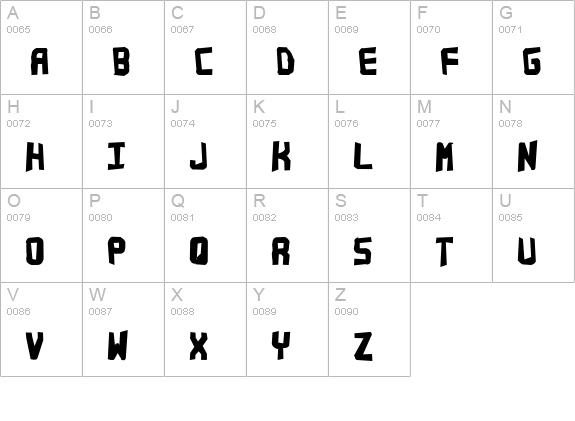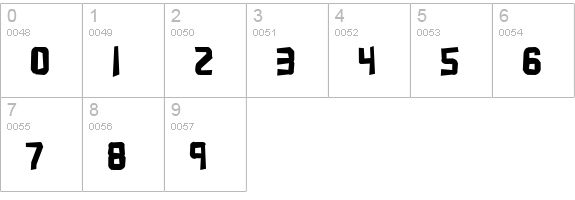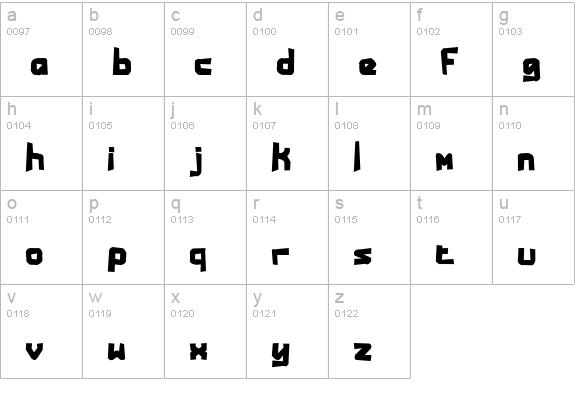
Bandwidth Bandmess (BRK) font is a bold and dynamic typeface that exudes energy and creativity. With its unique design featuring intricate lines and sharp angles, this font is perfect for making a statement in your designs. Whether you're working on posters, logos, or social media graphics, Bandwidth Bandmess (BRK) font will surely catch the eye of your audience. The best part? It's completely free to download at FontsMarket.com! Embrace the versatility and modernity of Bandwidth Bandmess (BRK) font and take your designs to the next level. Let your creativity run wild with this striking and eye-catching typeface that is sure to make a lasting impression. Download it now and elevate your design projects with this exceptional font.